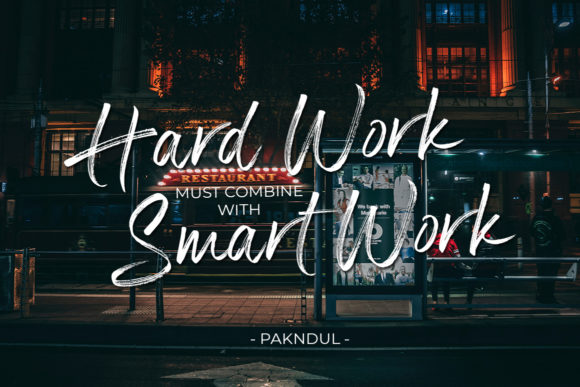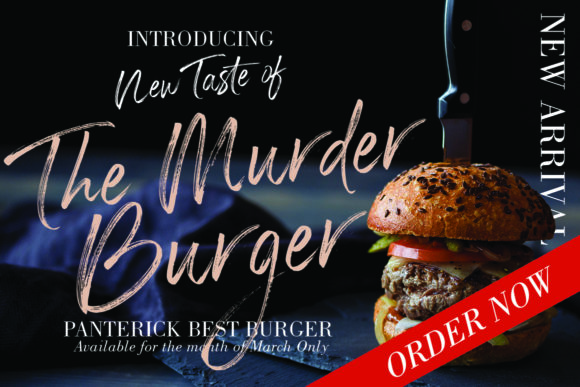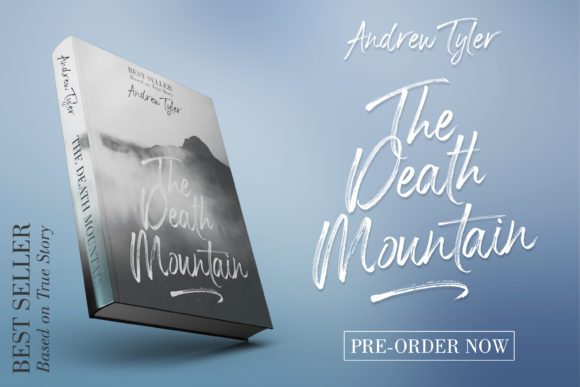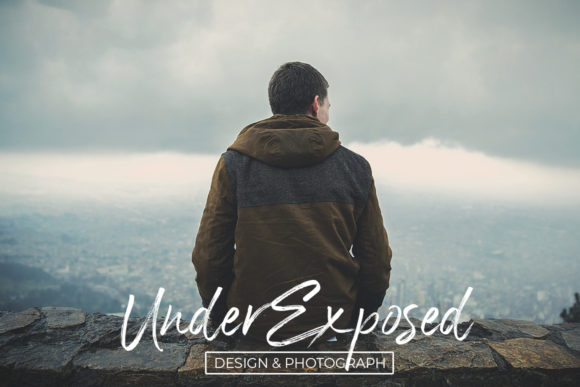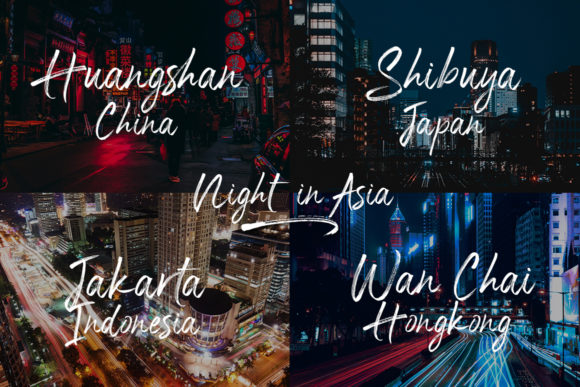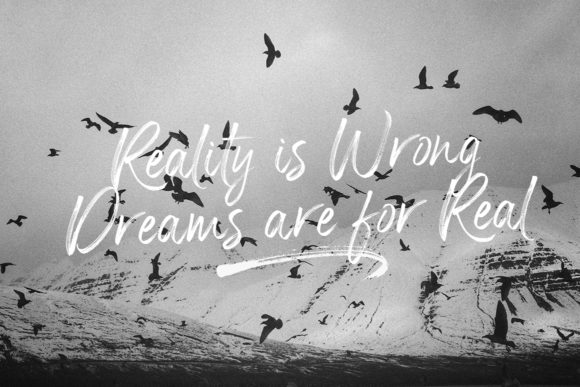
Introduction to Panterick Font
Have you ever stared at a blank canvas, wondering where to begin your next creative project? The blank page can be intimidating, but it’s in these moments that the perfect design resource can make all the difference. For designers looking to add a touch of authenticity to their work, look no further than the Panterick Font.
With its bold and beautiful handwritten style, the Panterick Font is a game-changer for any high-quality design. Whether you’re working on a creative project that requires a transparent background or a logo that demands attention, this font is sure to impress. And the best part? It’s available for free download, making it an invaluable asset for designers of all levels.
So why settle for a generic font when you can add a unique feel to your design with the Panterick Font? Whether you’re a seasoned pro or just starting out, this font is sure to elevate your work and leave a lasting impression.
Key Features of Panterick Font
- High-quality design resource with a modern and sleek aesthetic, perfect for creative projects.
- Includes a transparent background, allowing for seamless integration with various design elements.
- Features a unique, hand-drawn design style that adds a touch of personality to any creative project.
Honest Review: Panterick Font
I recently stumbled upon the Panterick Font and I must say it’s been a great addition to my design resource collection. As a designer, I’m always on the lookout for high-quality fonts that can elevate my creative project.
The Panterick Font is a unique and quirky font that stands out from the usual sans-serif fonts. Its transparent background makes it perfect for designers who want to add a touch of elegance to their designs. The font is also available for free download, making it a great option for designers on a budget.
What works well: ✨ The font is highly customizable, allowing designers to adjust the size, color, and style to suit their design needs. ✨ The font is also highly legible, making it perfect for body text and headings. ✨ The transparent background is a great feature that allows designers to add a touch of sophistication to their designs.
Limitations: ⚠️ The font is not suitable for designs that require a bold, loud font. ⚠️ The font may not be compatible with all design software.
Overall, I’m impressed with the Panterick Font. It’s a great addition to any designer’s collection and can add a touch of creativity to any project. If you’re looking for a unique and high-quality font, the Panterick Font is definitely worth checking out.
- Highly legible
Tips for Getting the Most Out of Panterick Font
Use the Panterick Font in combination with other design elements, such as images and graphics, to create a unique and eye-catching design. Experiment with different font sizes, colors, and styles to find the perfect look for your creative project. With a transparent background, you can easily place the font on any image or background, giving you more flexibility and creativity.
The Panterick Font is ideal for use in a variety of creative projects, including business cards, brochures, posters, and social media graphics. With a high quality design resource like the Panterick Font, you can create professional-looking designs that stand out from the crowd.